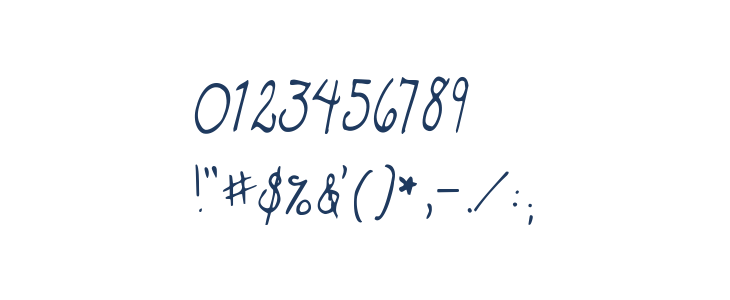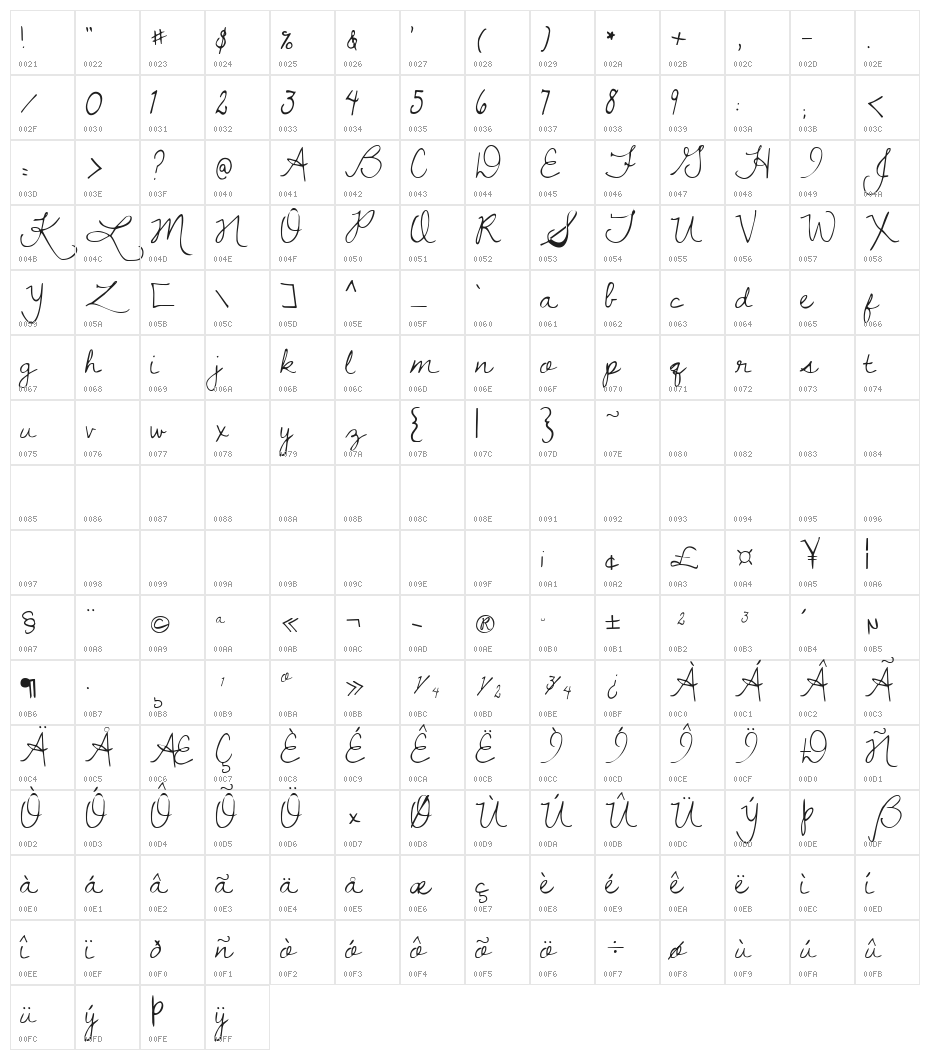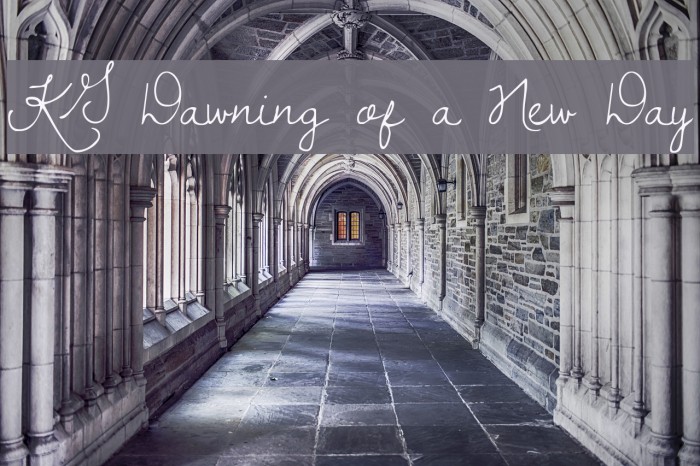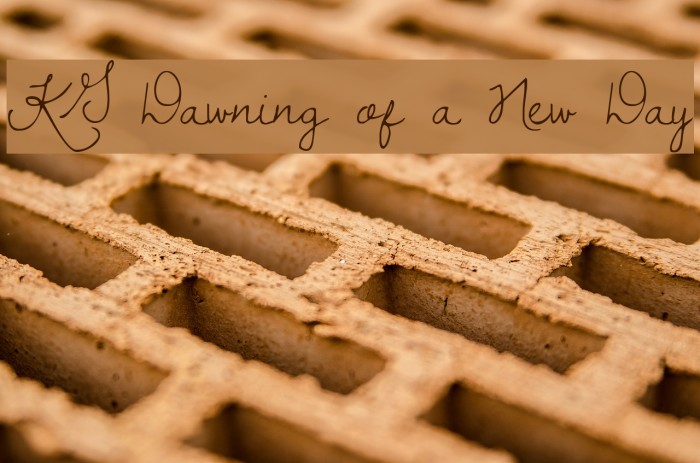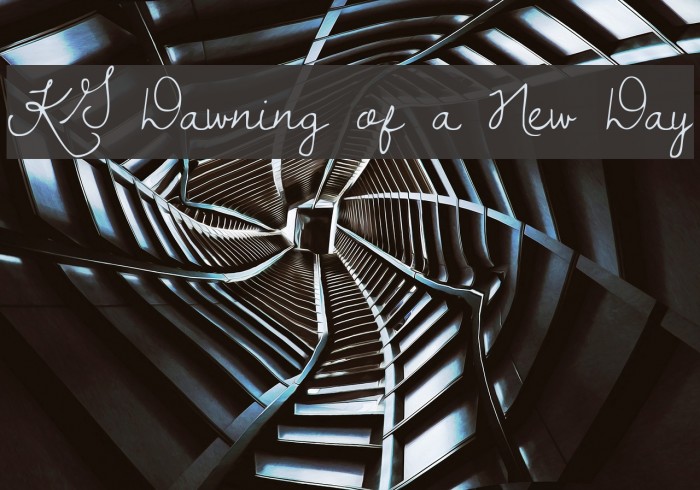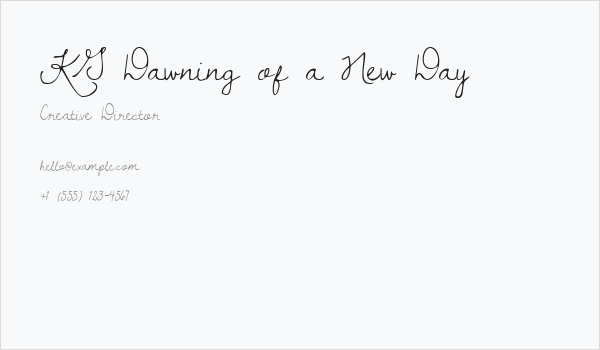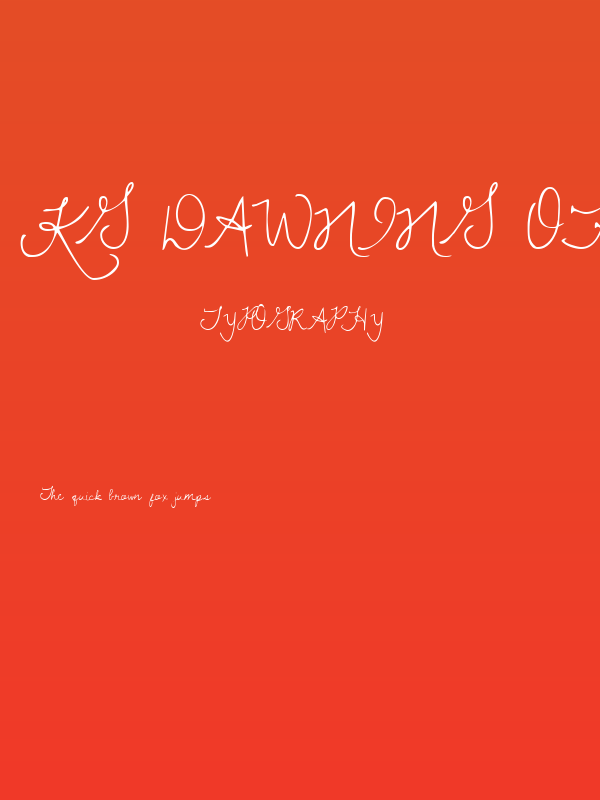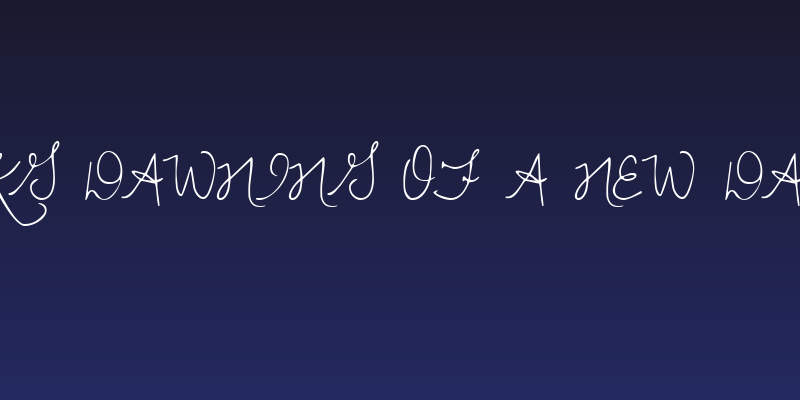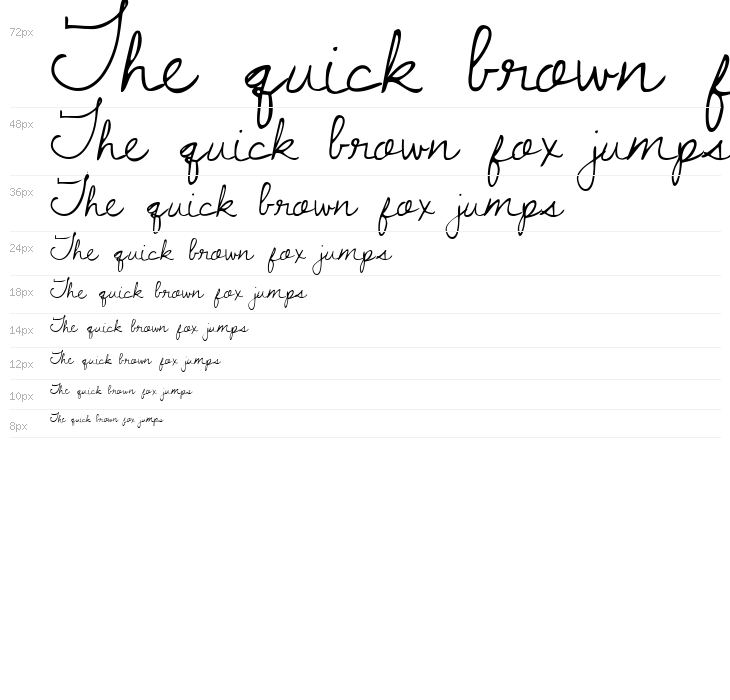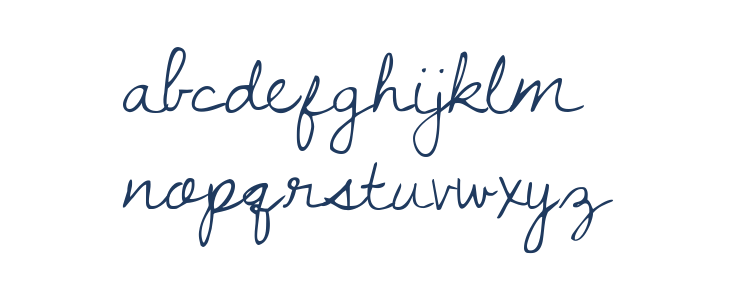
KG Dawning of a New Day Font
KG Dawning of a New Day Description
This font features a whimsical and flowing script style, characterized by its elegant and fluid strokes. The uppercase letters exhibit a playful yet sophisticated flair, with varying line thickness that adds a dynamic quality. The lowercase letters maintain a consistent, cursive style that complements the uppercase, offering a harmonious balance. Numbers and special characters are crafted with the same attention to detail, ensuring a cohesive appearance across all elements. The overall design is both artistic and legible, making it suitable for creative and expressive projects.
| Use Case | Logos, Invitations, Artistic designs |
| Proposed Projects | Ideal for wedding invitations, greeting cards, branding projects, and artistic designs. |